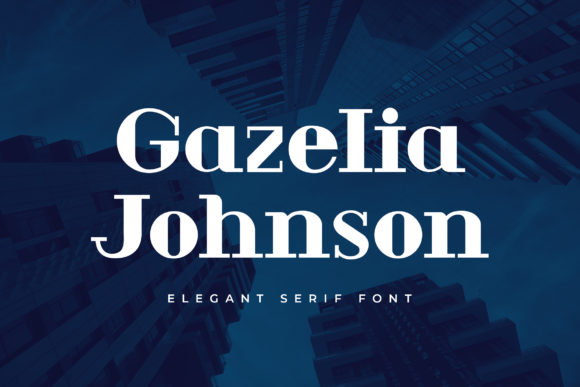
Are you seeking a font that exudes both sophistication and confidence? A font that not only adorns your designs but also elevates them to new heights of elegance? Gazelia Johnson, a captivating serif font, is your ultimate solution!
Gazelia Johnson, meticulously crafted by the talented uicreativenet, is more than just a font; it's an artistic masterpiece. Its meticulously drawn characters display a timeless beauty, adding an aura of refinement to every project they grace. The font's graceful curves and sharp edges create a striking contrast, resulting in a visual symphony that commands attention. With Gazelia Johnson, your designs will radiate an air of luxury and distinction.
This versatile font is a true chameleon, effortlessly adapting to a multitude of design styles. Whether you're creating a minimalist masterpiece, a chic fashion catalog, or an eye-catching logo, Gazelia Johnson seamlessly blends in, enhancing your designs with its understated elegance. Its versatility knows no bounds, making it the perfect choice for a diverse range of projects.
Gazelia Johnson's inherent versatility extends beyond its stylistic adaptability. This font possesses a remarkable ability to evoke emotions and convey messages through its very presence. Its refined strokes exude a sense of authority and trust, making it ideal for creating designs that demand attention. Whether you're crafting a captivating poster, a persuasive presentation, or an informative brochure, Gazelia Johnson lends its eloquence to your words, ensuring your message resonates with your audience.
Embark on a creative journey with Gazelia Johnson and unlock the true potential of your designs. Let this elegant font elevate your projects to new heights of sophistication and leave an unforgettable impression on your audience. Embrace the beauty of Gazelia Johnson and witness the transformation of your designs into works of art.